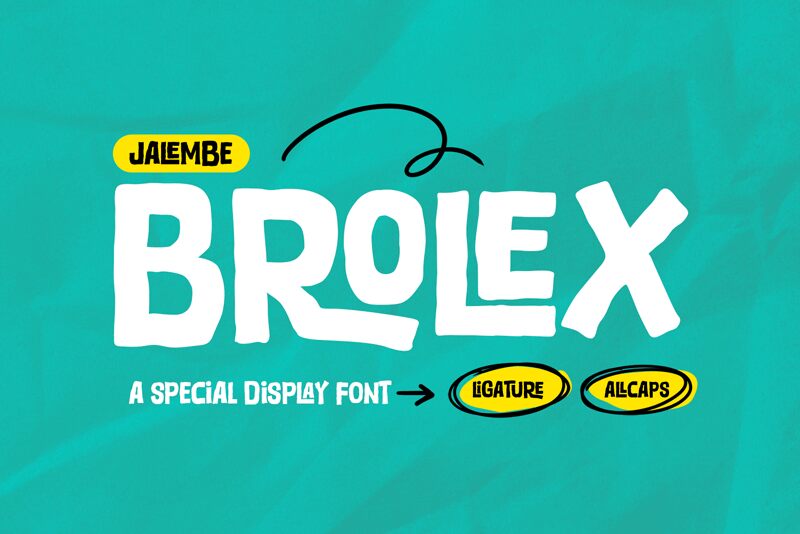
Brolex font family by Khurasan™ is a free cartoon font with dynamic letter shapes and an informal personality. Filled with bold and expressive characters, Brolex still manages to maintain its contemporary appearance. The font’s unusual forms provide each separate letter with high levels of visibility and recognition. Its finished shapes carry a casual tone with absolutely no additional decorative details.
Brolex will be a great font choice for advertising and promotional posters, flyers, brochures, magazines, and banners. Its unusual letters will perform nicely on book covers, branding projects, typographic logos, movie titles, greeting cards, mugs, packaging boxes, and other product labels.